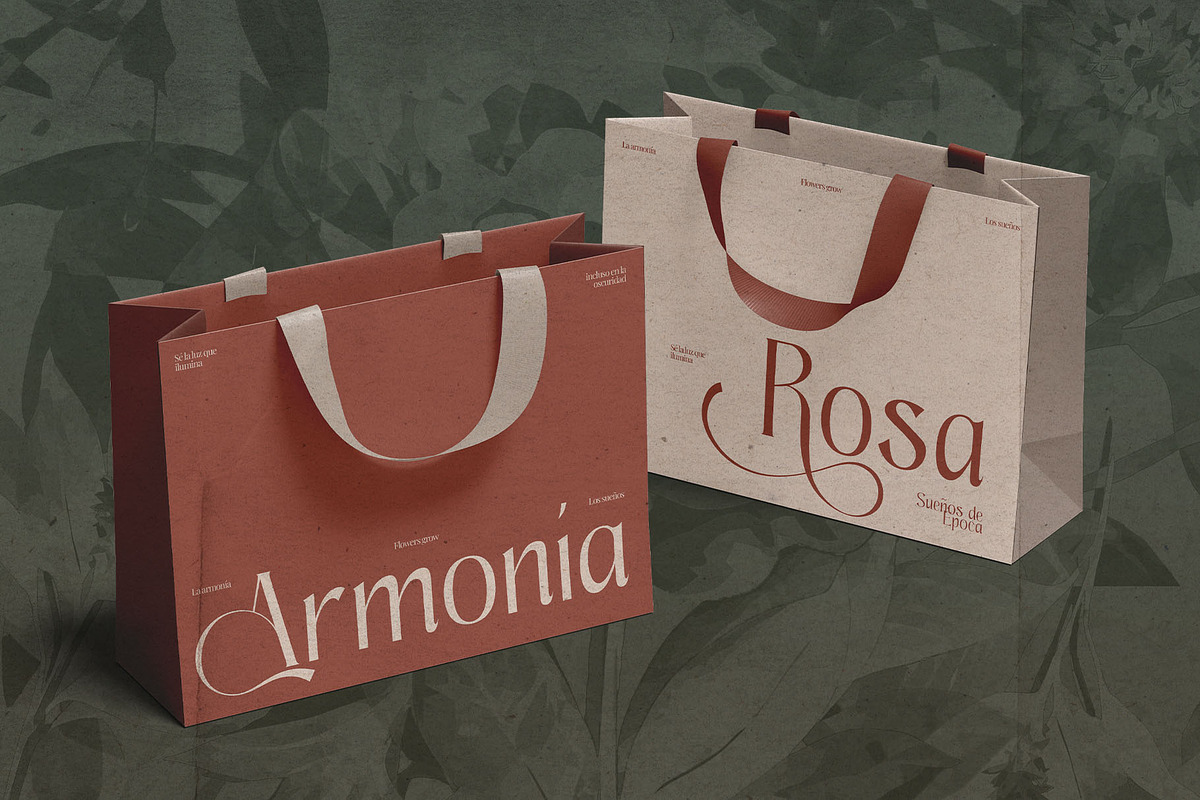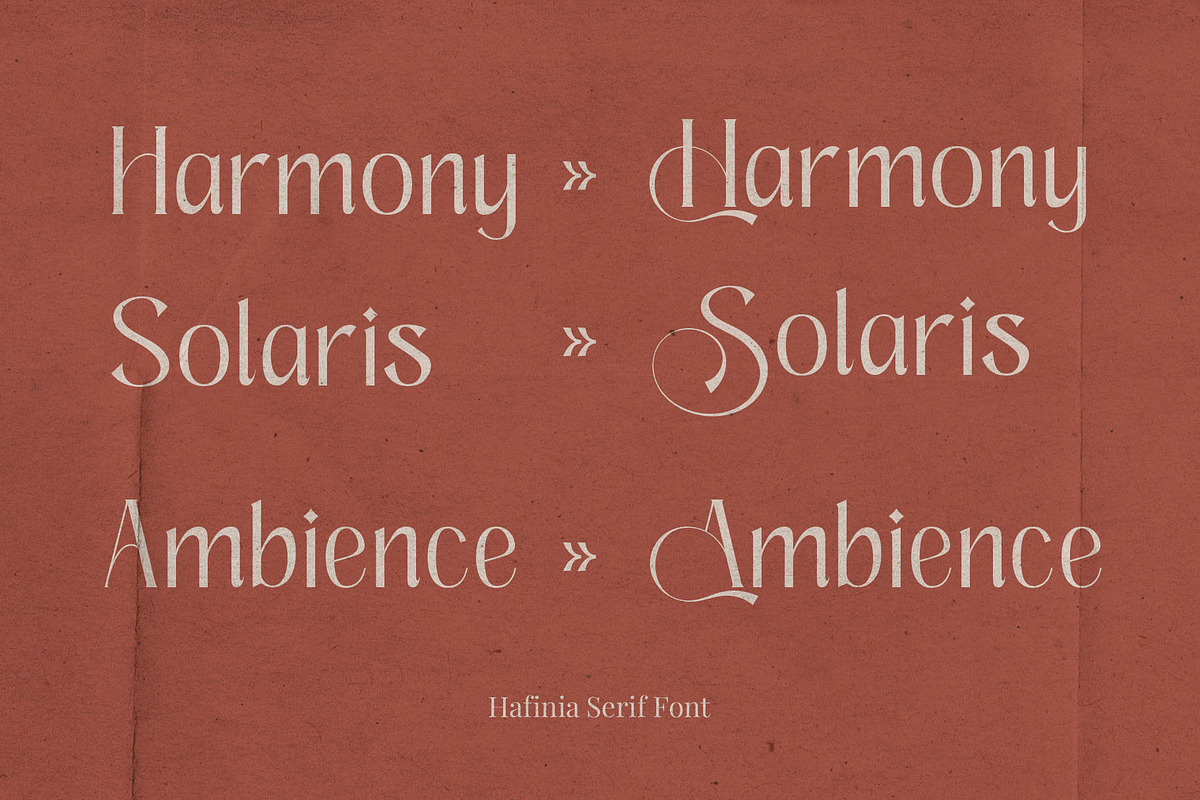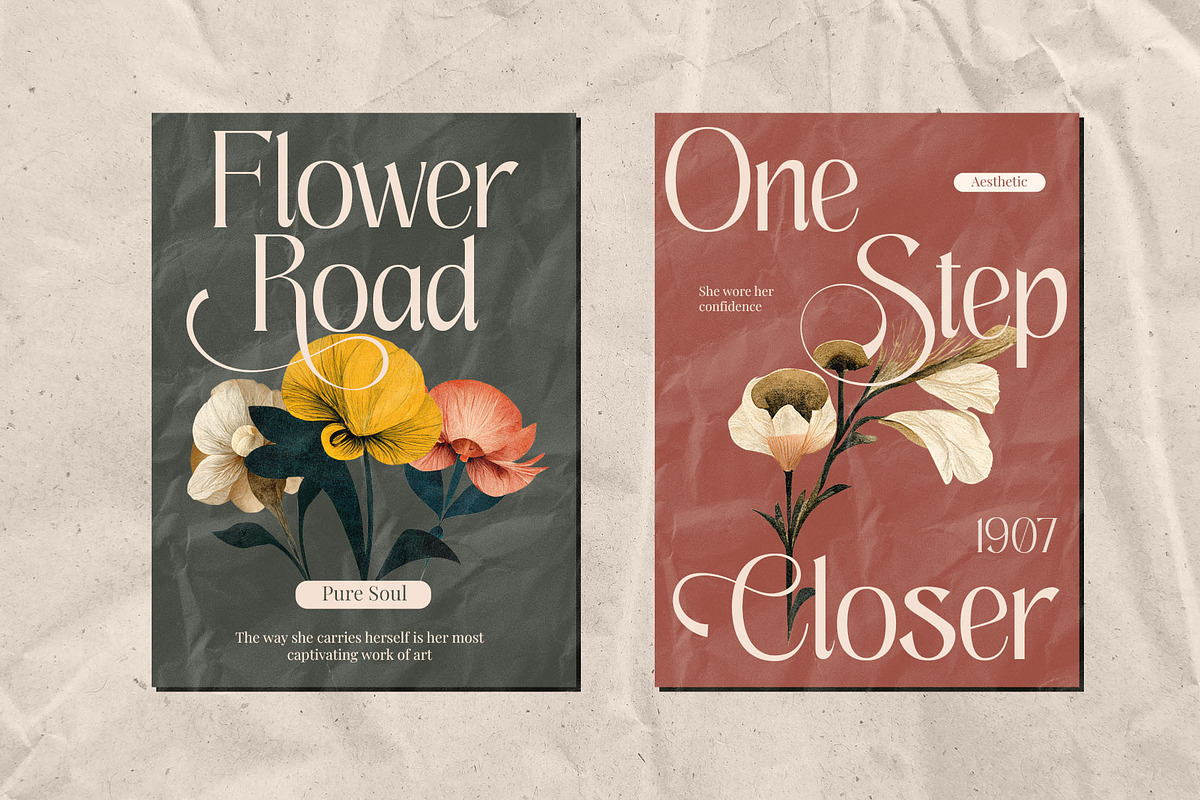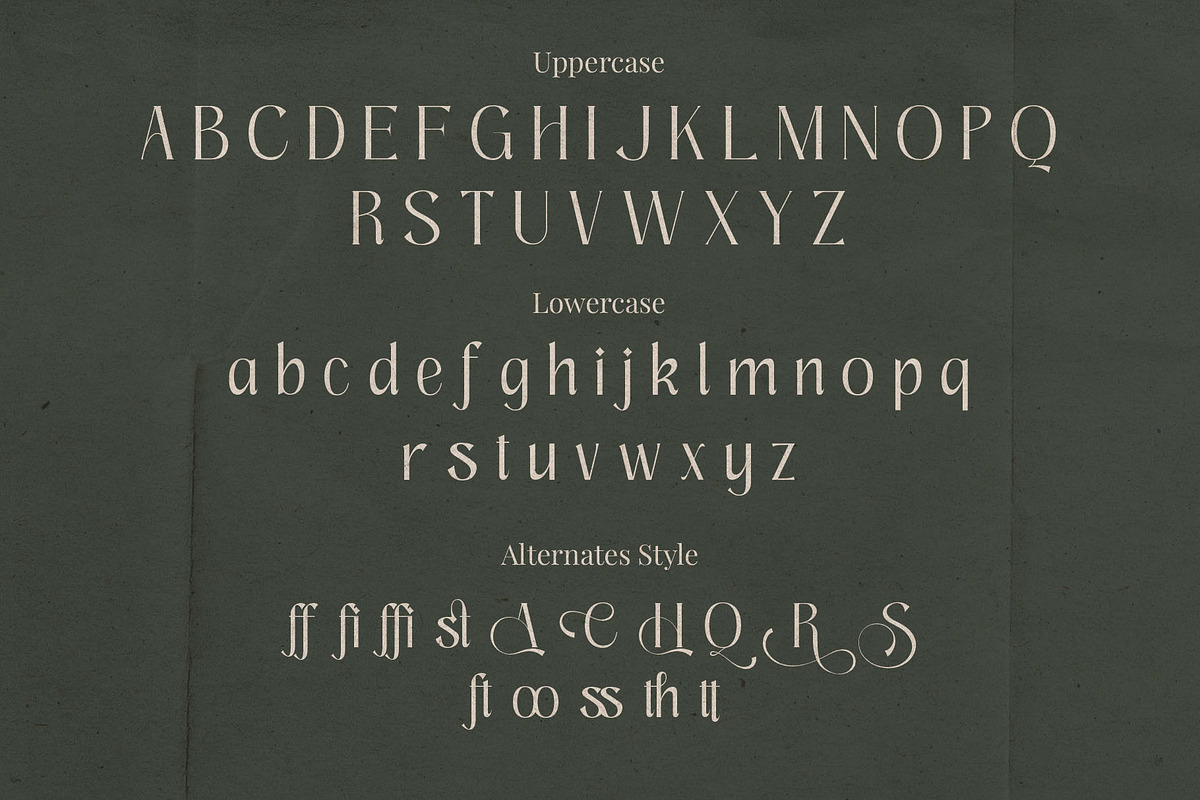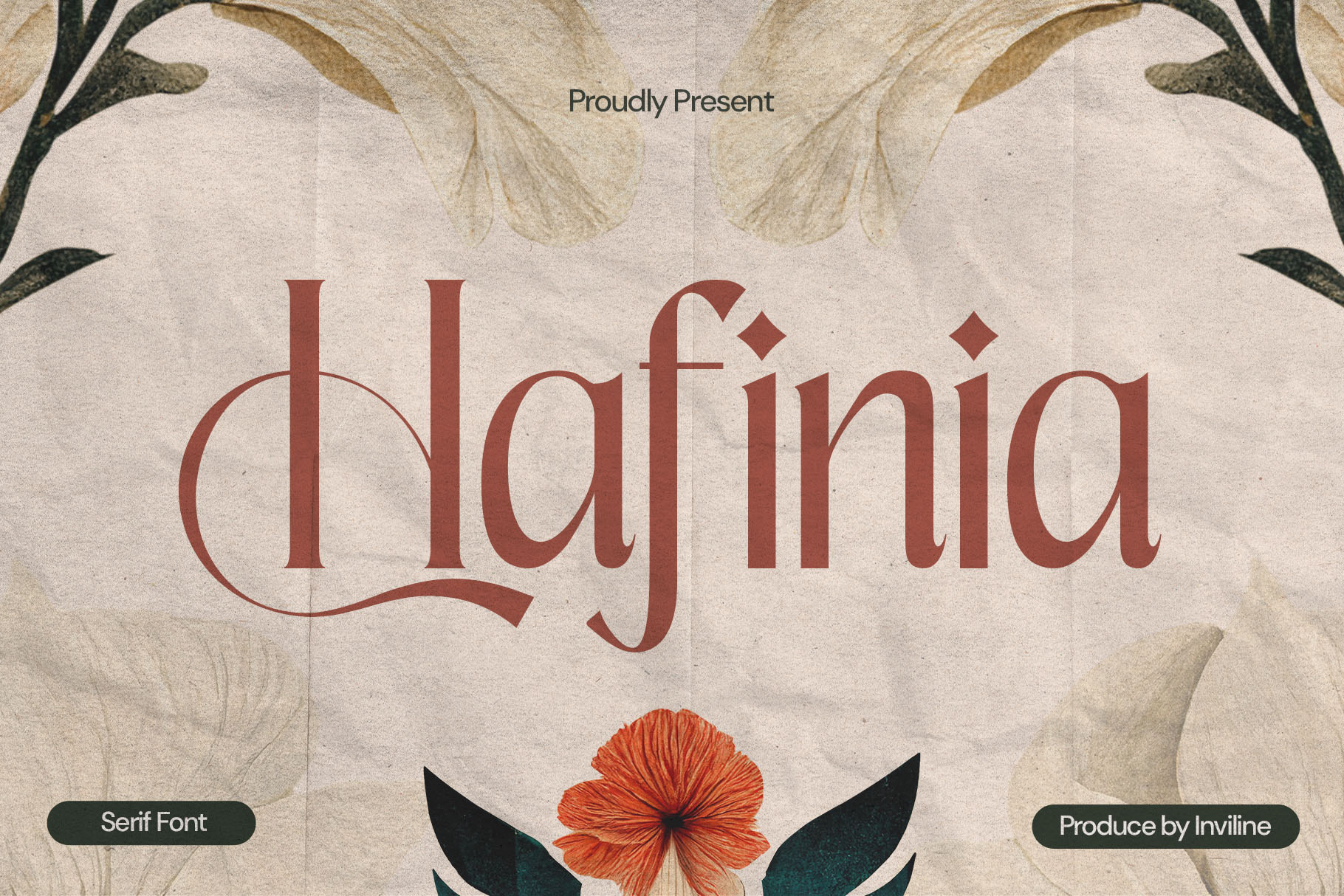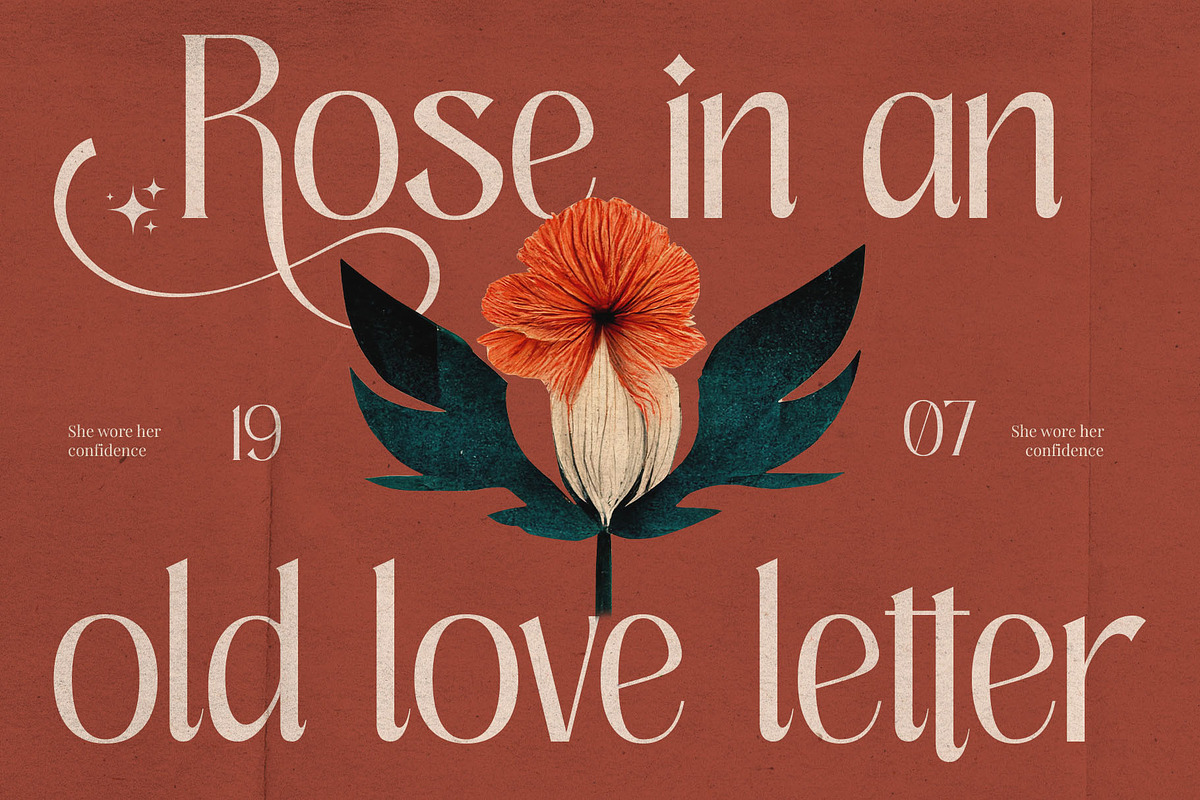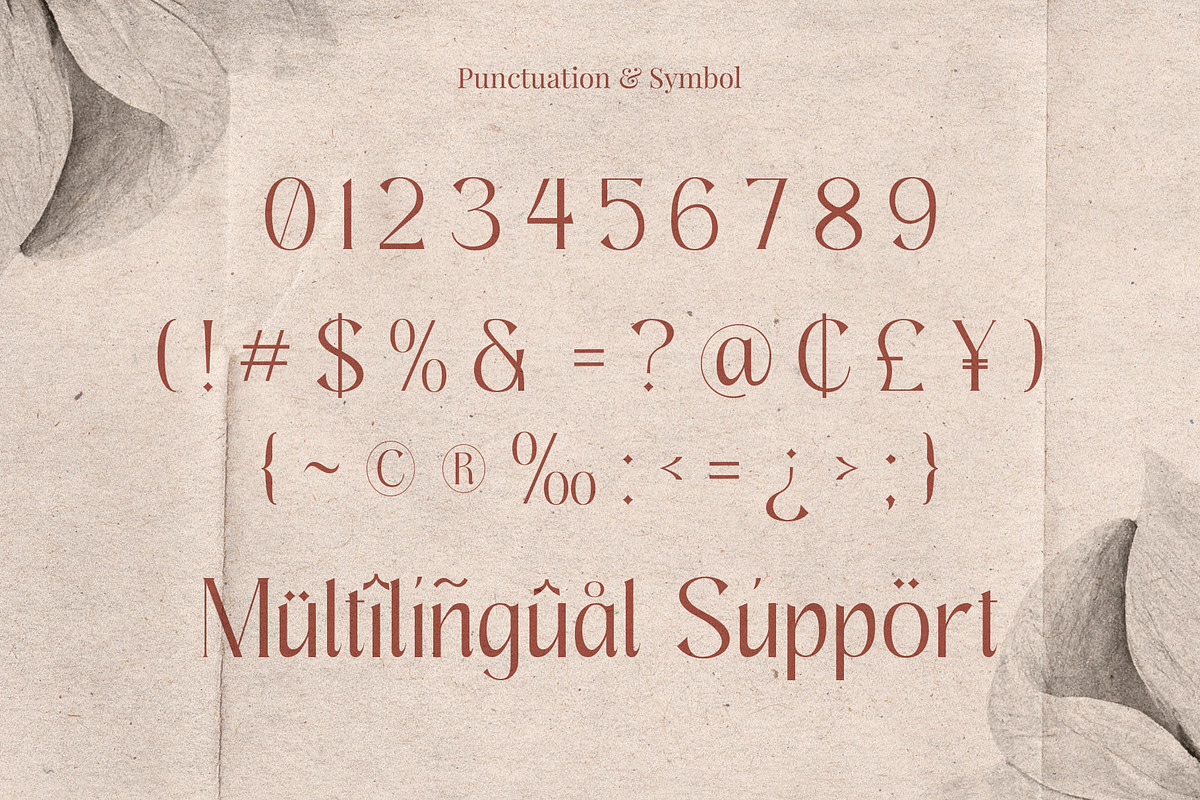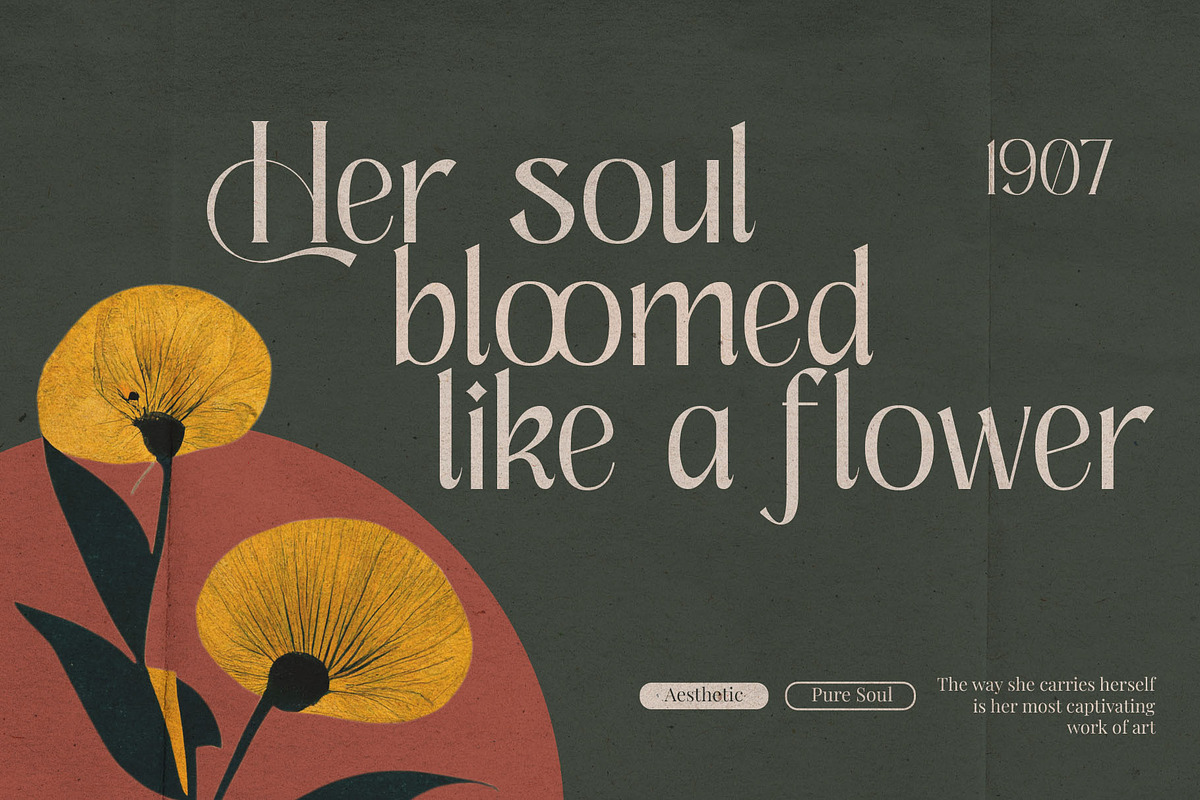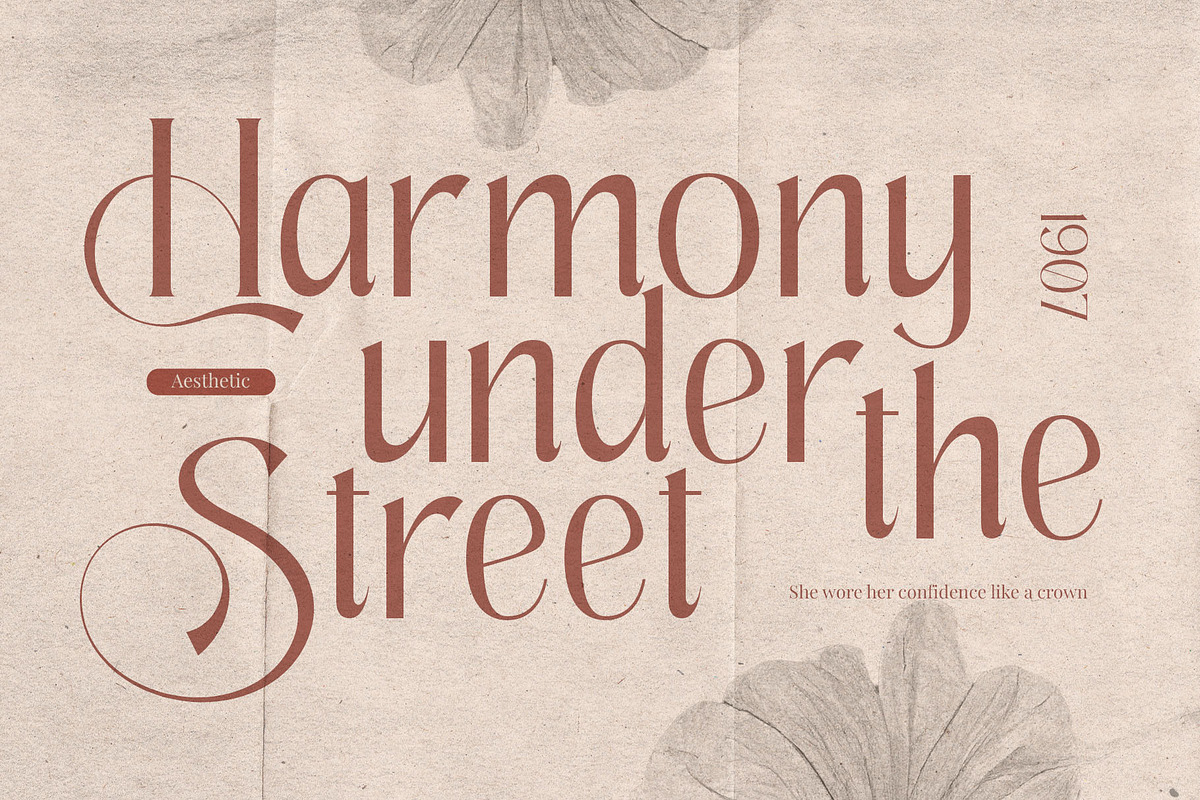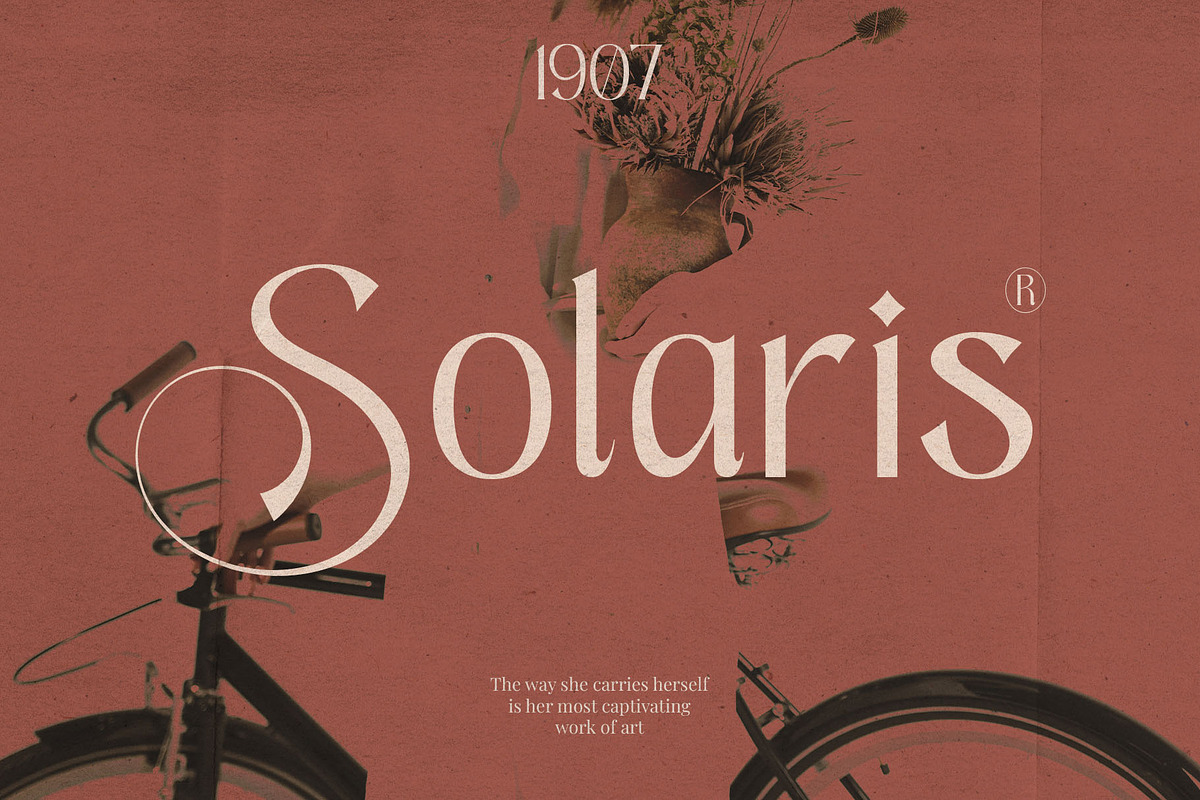
Hafinia - Elegant Serif Font
Introducing a stunning Elegant Serif Font! Intricate details and elegant flourishes perfect for logos, branding, wedding invitations, and more. Download now and elevate your designs!
- Uppercase & Lowercase Characters: Fully designed for a complete typographic experience
- Numerals & Punctuation: All the numbers and punctuation marks you need for any design task
- Multilingual Support: Includes characters for multiple languages, ensuring global usability
- High-Quality Design: Each font is crafted with attention to detail, ensuring a polished and professional look